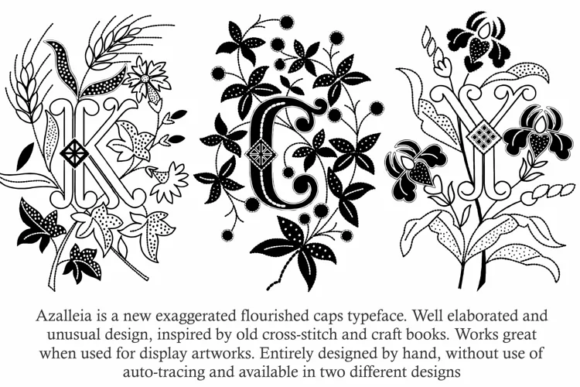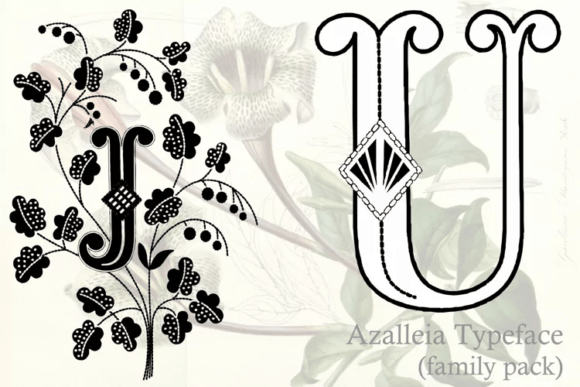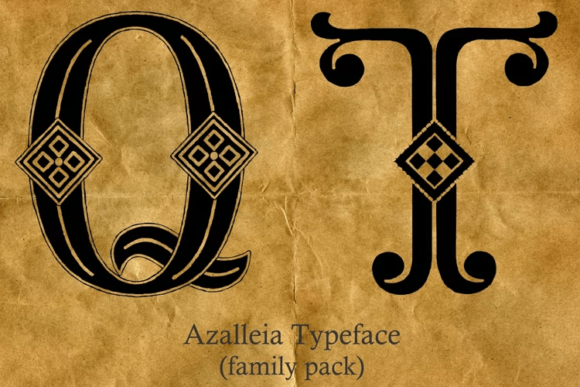
A New Era of Typography: Introducing Azalleia Typeface Family Pack Font
There’s something magical about the moment when a creative idea strikes. You’re sitting at your desk, surrounded by scraps of paper, paint splatters, and the hum of your computer, when suddenly, a font design sparks in your mind. For designers, this moment is a thrill like no other, and it’s exactly what inspired the creation of the Azalleia Typeface Family Pack Font.
This unique and eye-catching font family is a must-have for any designer looking to add a touch of whimsy to their next project. With its exaggerated flourished caps and intricate details, Azalleia is the perfect choice for display artworks, from posters to social media graphics. And the best part? It’s entirely hand-designed, without the use of auto-tracing, ensuring a one-of-a-kind look that’s sure to stand out.
- Unique Characteristics: Elegant, modern design with subtle flair; Ideal for branding, advertising, and editorial content
Azalleia Typeface Family Pack Font Review
I recently had the chance to work with the Azalleia Typeface Family Pack Font, and I’m here to share my honest thoughts on it. Overall, I think it’s a solid addition to any designer’s toolkit. ✨
The Azalleia typeface has a unique and elegant aesthetic that’s perfect for creative and artistic projects. The font’s flourishes and swashes add a touch of sophistication and whimsy.
The font family is quite extensive, with a wide range of weights and styles to choose from. This makes it easy to find the perfect match for your design needs.
The Azalleia typeface is highly customizable, with a range of options for adjusting letter spacing, font size, and more.
The font’s legibility can be a bit of an issue in certain situations, particularly at small font sizes. This may make it less suitable for body text or other applications where readability is a top priority.
Overall, I think the Azalleia Typeface Family Pack Font is a great choice for designers who want to add a touch of elegance and sophistication to their projects. While it may have some limitations, its unique aesthetic and customization options make it a solid addition to any design toolkit. ⚠️
The Azalleia Typeface Family Pack Font is ideal for:
1. Branding and identity projects.
2. Creative and artistic designs.
3. Professional and business presentations.